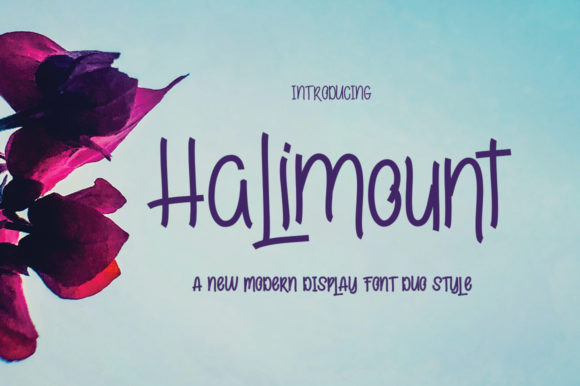
The Halimount Font by the JoeeCreative Foundry will add a dash of down-to-earth charm to all of your designs, whether you're creating stationery or greeting cards. Its casual style makes it easy to read and incredibly versatile with a wide variety of application uses. Whether you're looking to add a special touch to your personal projects or want to give your business correspondence an upgrade, the Halimount Font is a great choice.
The Halimount Font is available in both regular and bold weights and comes with a complete set of upper and lowercase letters, numbers, and punctuation, as well as supports for various languages.
It is suitable for use on both web and print projects and has been carefully optimized to ensure that it looks crisp and clear at any size.